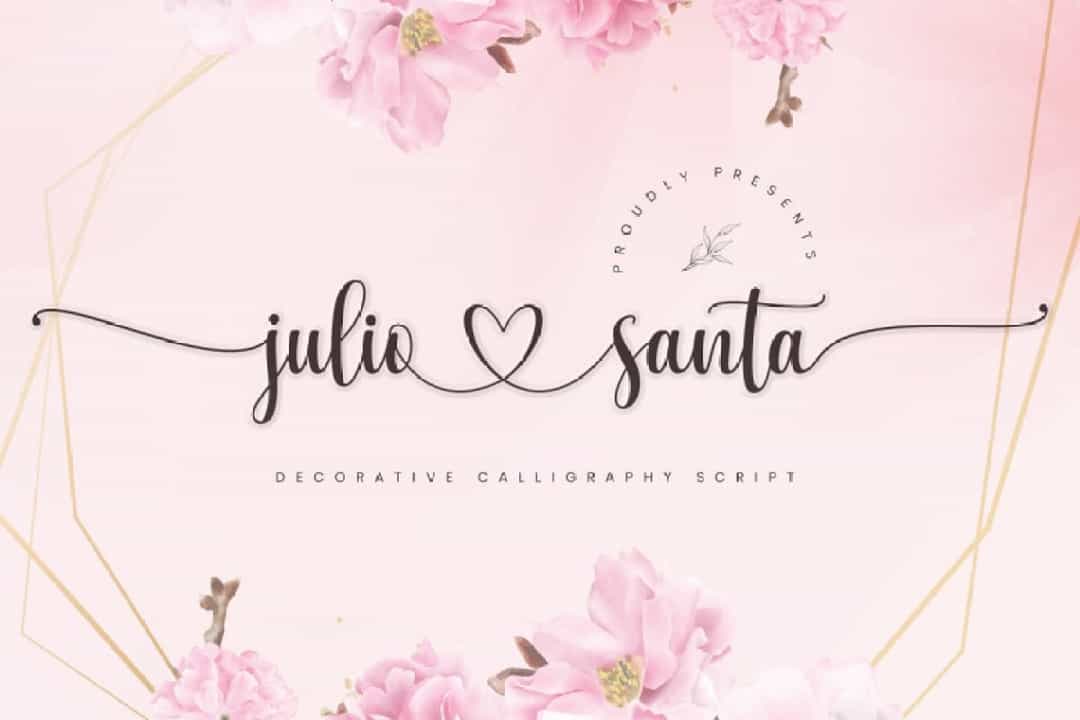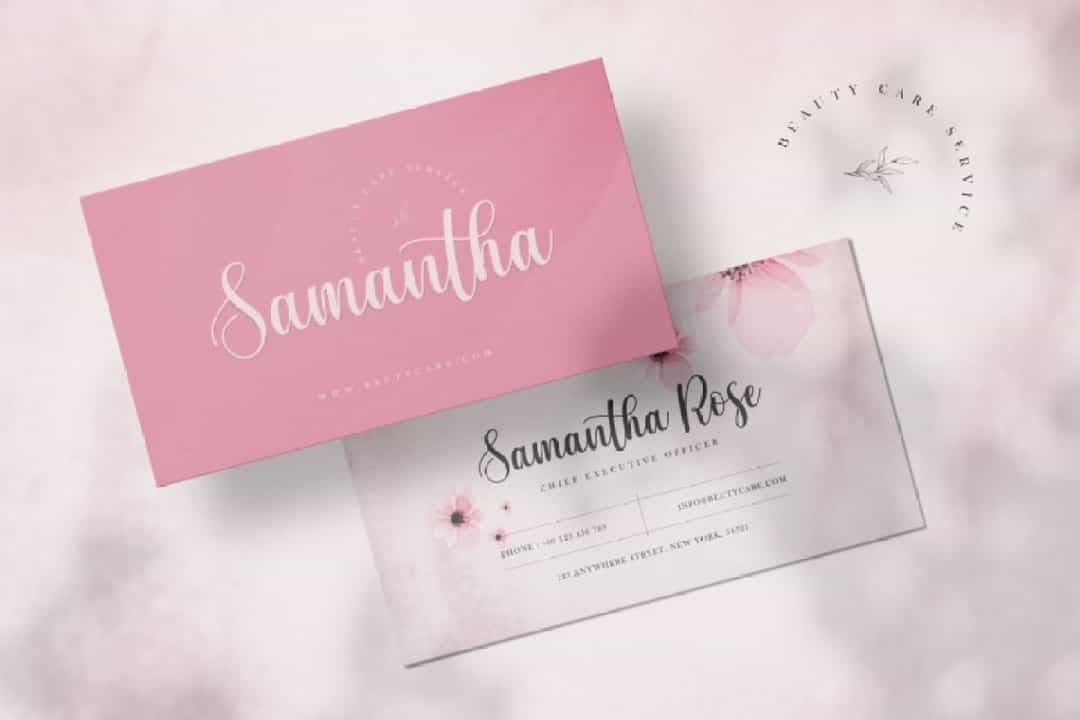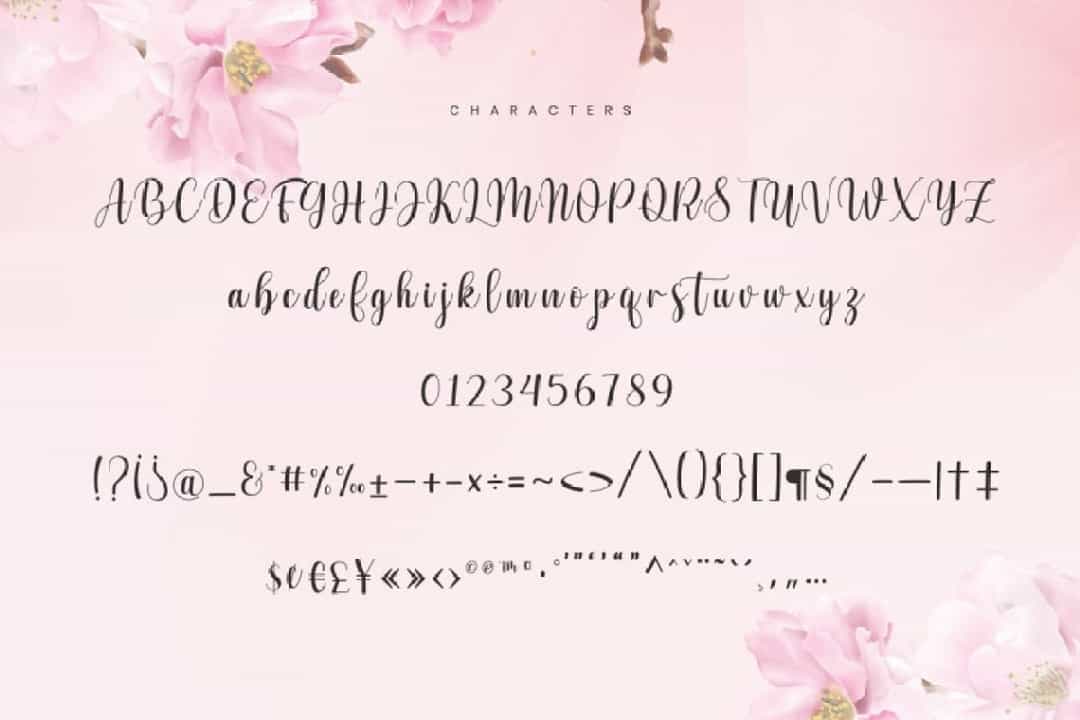
Julio Santa is an elegant decorative script font featuring calligraphic-style letterforms. Perfect for wedding invitations and craft designs that require romantic feminine design elements, as well as other projects which require romantic yet feminine designs this font was made to meet all your needs! Bringing romance, chic, and modernity together into one font design!